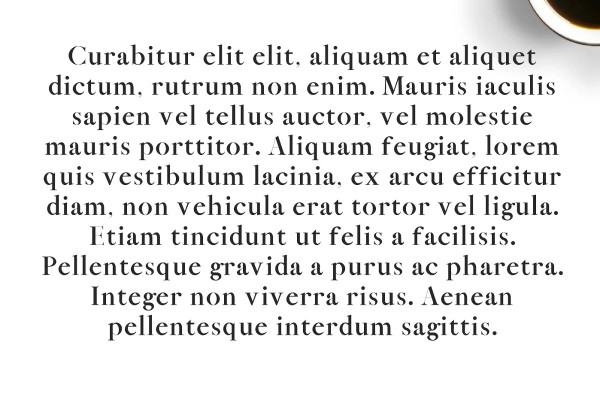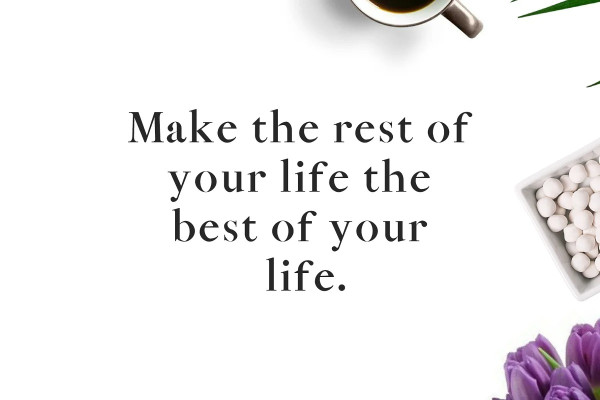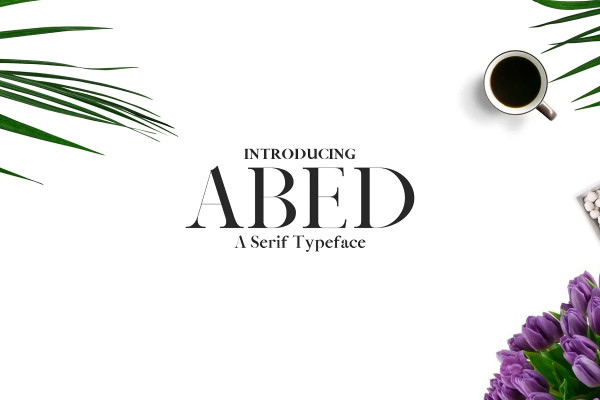
Abed Font
Abed Font is a creative and modern font perfect for use in logo designs, resume, headlines, banners and templates etc. It looks gorgeous in all caps with a wide-set spacing if you want to try a classy look, or beautiful on its own in capital and lowercase letters for something completely timeless.